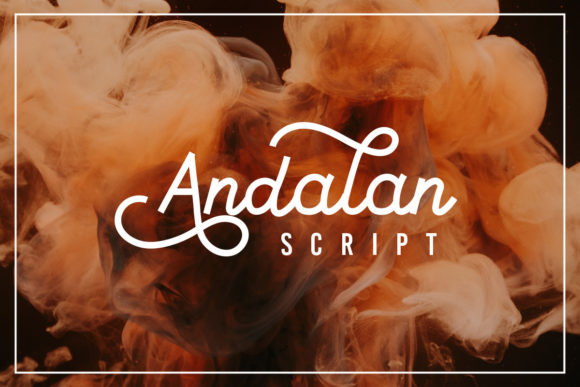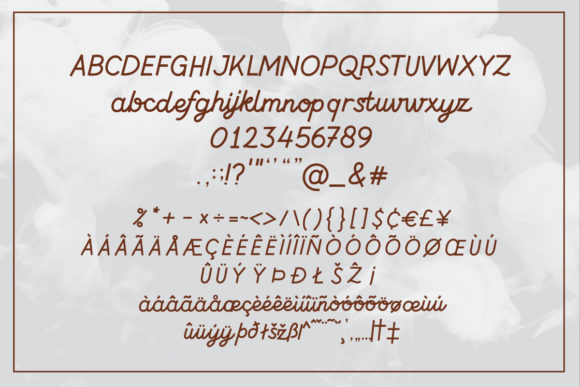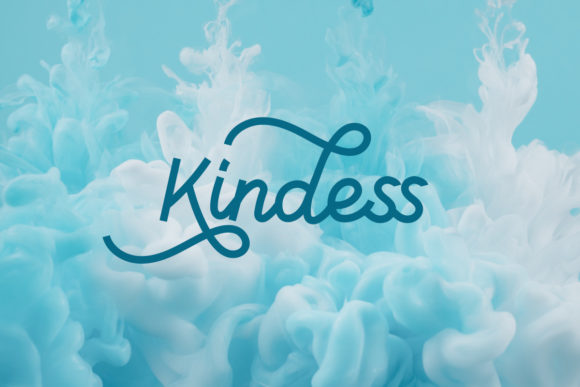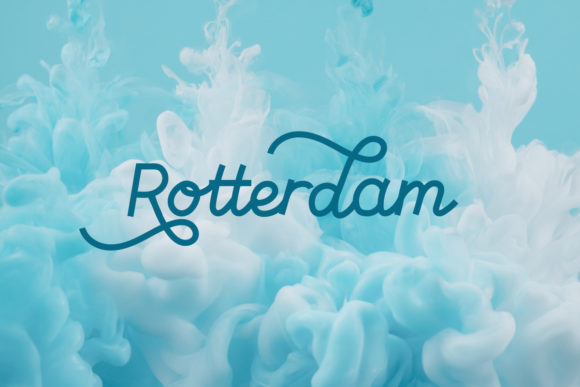
Andalan Script Font
About Andalan Script Font
Andalan Script is a delicate, flowing and vintage styled handwritten font. Not too thin and not too thick, balanced and varied, this font was designed to enhance the beauty of your projects.